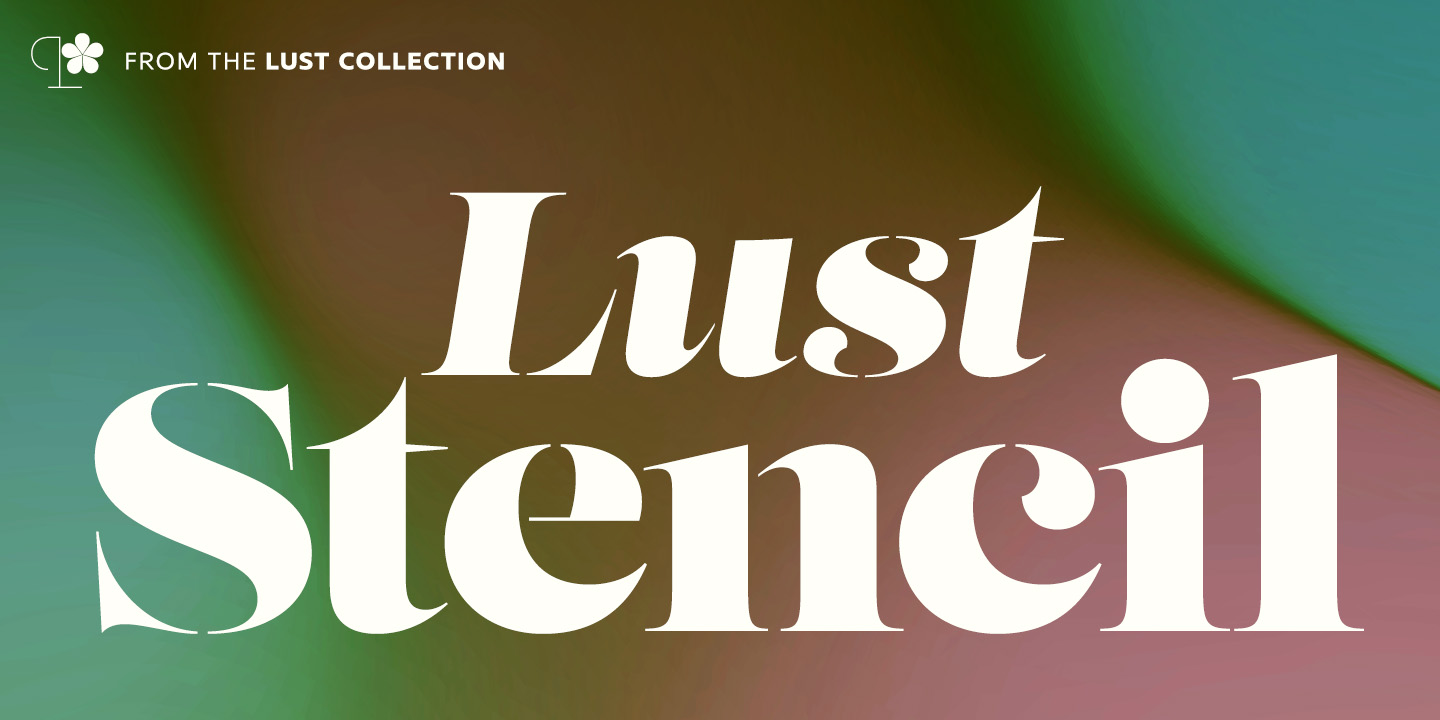
Lust Stencil Font is perfect for industrial brand identities, military-inspired designs, urban street art projects, warehouse signage systems, cargo company branding, tactical equipment labels, construction site graphics, shipping container markings, and any design project that requires rugged durability and authentic stencil character.
What makes Lust Stencil Font so exciting is its powerful ability to combine raw industrial functionality with sophisticated contemporary design that creates instantly recognizable stencil aesthetics with remarkable elegance and professional refinement. This font embodies the essence of utilitarian beauty with its bold, cut-out letterforms that preserve the authentic character of traditional stenciling while achieving modern typographic sophistication. The carefully engineered characters feature strategic breaks and robust proportions that communicate strength, durability, and no-nonsense functionality, creating the perfect typography solution for brands and projects that demand both industrial authenticity and contemporary design excellence.
The Lust Stencil Font family typically includes multiple weight variations with comprehensive character sets featuring uppercase and lowercase letters, numerals, punctuation marks, and industrial design elements. Some versions may offer additional styles like condensed or extended variants, along with tactical alternates that provide designers with utilitarian options for creating authentic, military-grade layouts with genuine industrial appeal and contemporary sophistication.
Lust Stencil Font Free Download has become increasingly popular among industrial designers, urban artists, and brand professionals who specialize in rugged, utilitarian aesthetics. This distinctive typeface excels in both digital and print applications where industrial authenticity and tactical reliability are essential for connecting with audiences who value functionality, durability, and no-nonsense design approaches.
The font's stencil design makes it particularly effective for logistics companies, construction firms, military contractors, and industrial brands that need to communicate strength and operational reliability. Its robust character shapes and excellent visibility ensure professional results across various media formats and challenging environmental conditions.
Designers choose Lust Stencil Font for its ability to instantly convey industrial authority and tactical functionality while maintaining contemporary design sophistication that appeals to modern audiences. The font's utilitarian construction works powerfully on everything from warehouse signage to sophisticated brand systems.
Whether you're developing industrial brand materials, tactical equipment graphics, urban art projects, or rugged corporate communications, Lust Stencil Font delivers the perfect fusion of industrial authenticity and contemporary design that creates memorable impressions with uncompromising durability and tactical precision.